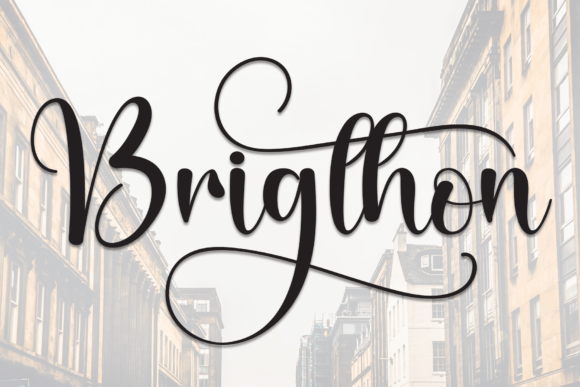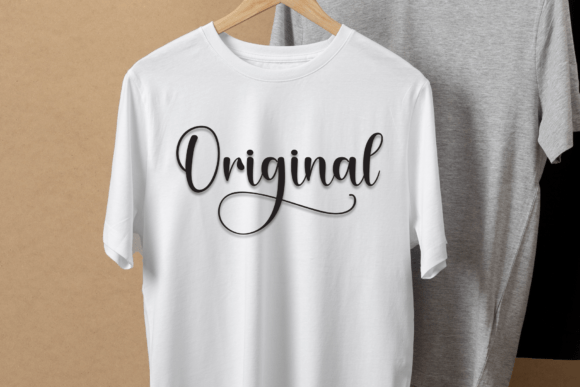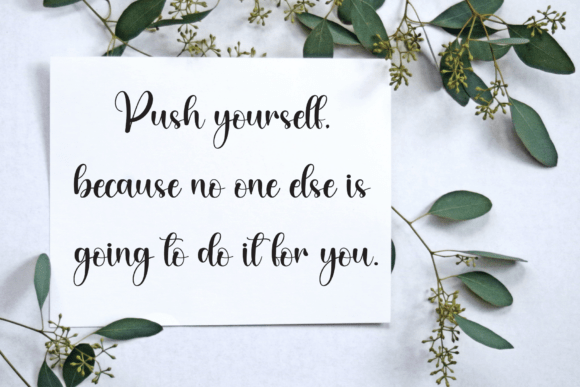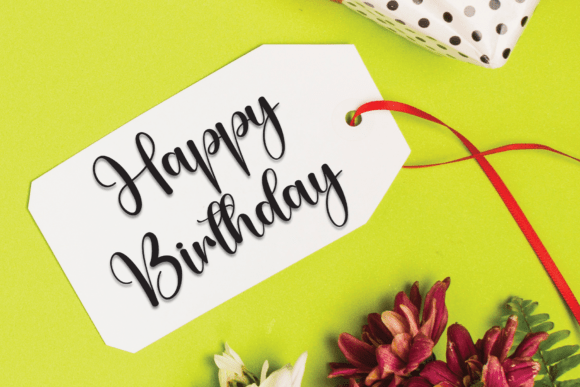
Brigthon Font
About the Brigthon Font
Presenting Brigthon Font, a unique and stylish typeface that will make your work stand out. Add a touch of sophistication to your designs with this elegant script font with Swashes – a graceful, flowing typeface that’s perfect for creating romantic and luxurious visuals. With beautiful beginning and ending swashes, this script font adds an extra flourish to wedding invitations, branding projects, social media graphics, and handwritten quotes.
Brigthon’s elegant, flowing forms excel in headlines, short paragraphs, and branding applications where a touch of luxury is desired. It’s ideal for invitations, logos, and short-form marketing materials. However, its decorative swashes make it unsuitable for body text or UI elements requiring high readability. Avoid using it for large blocks of text.
Pair Brigthon with a clean sans-serif like Montserrat for a modern feel, or a classic serif such as Garamond for a more traditional, sophisticated look. For a playful contrast, consider pairing it with a geometric sans-serif such as Futura.
Its overall personality is sophisticated and romantic, lending itself to brands focused on luxury goods, high-end services, or events requiring a touch of timeless elegance.
Brigthon Font Usage Examples
Brigthon Font Example